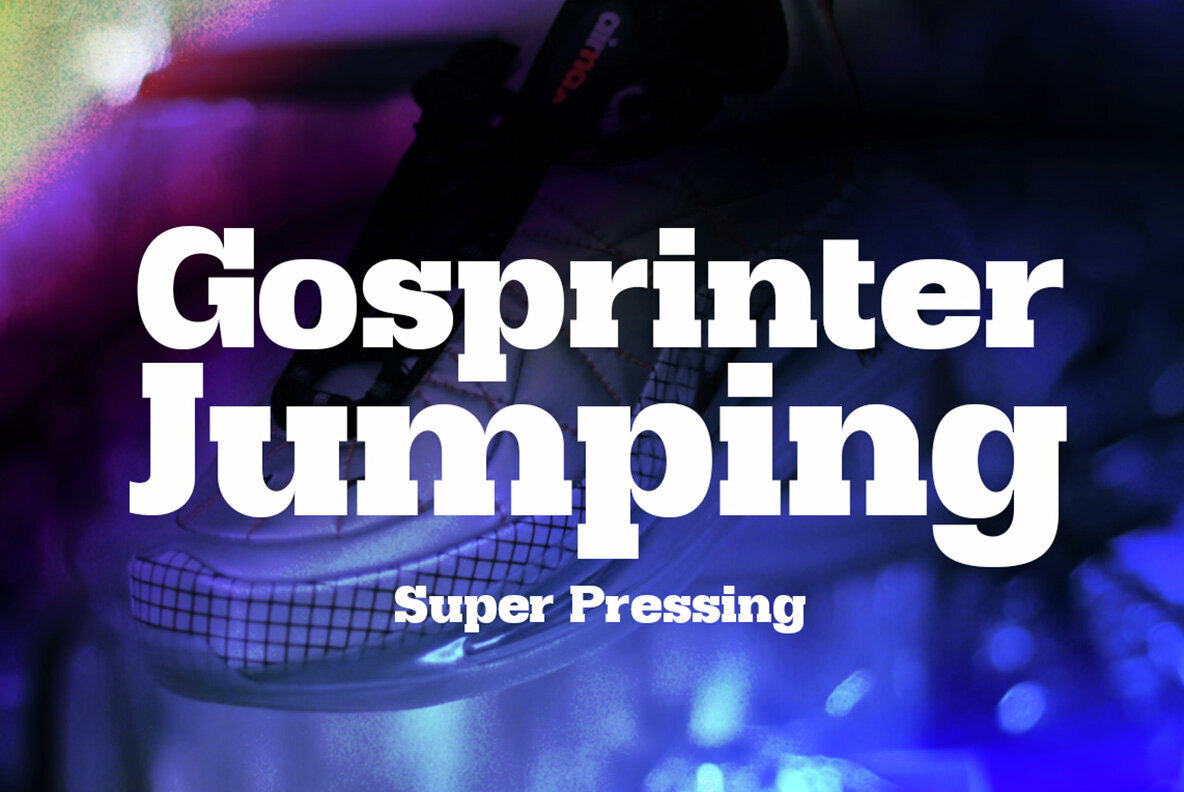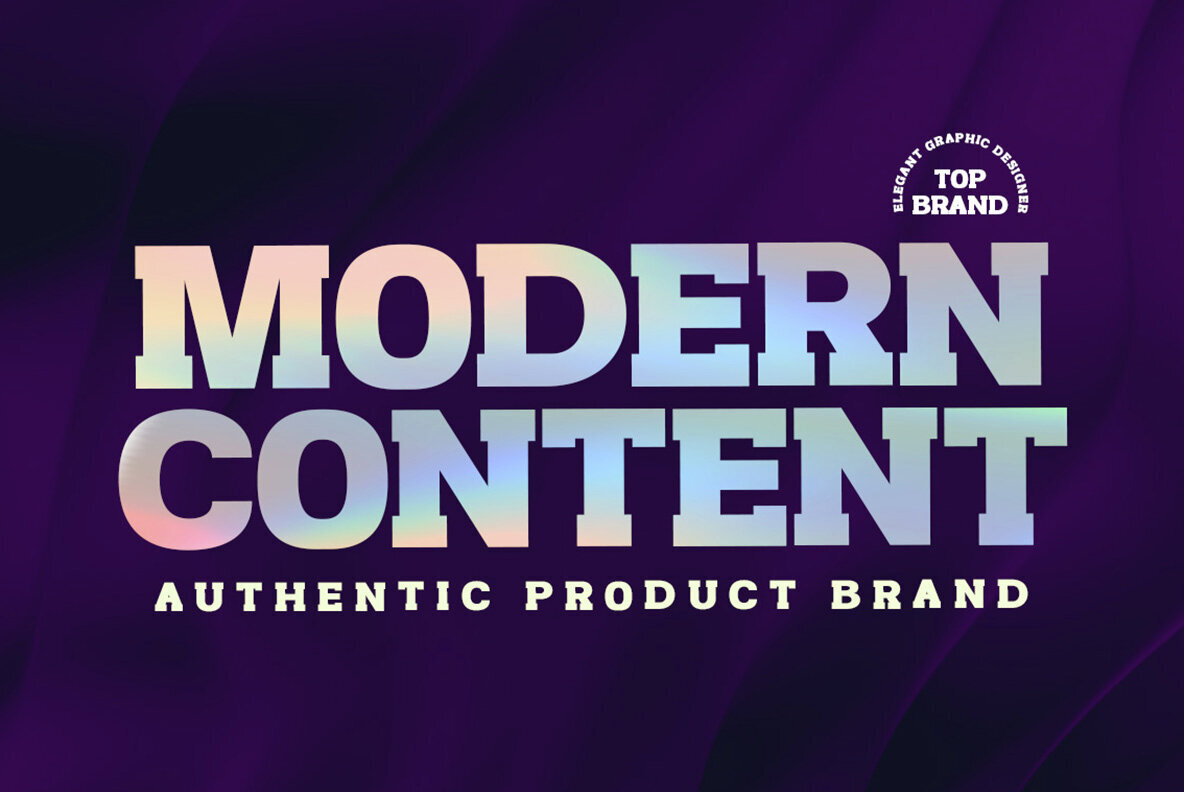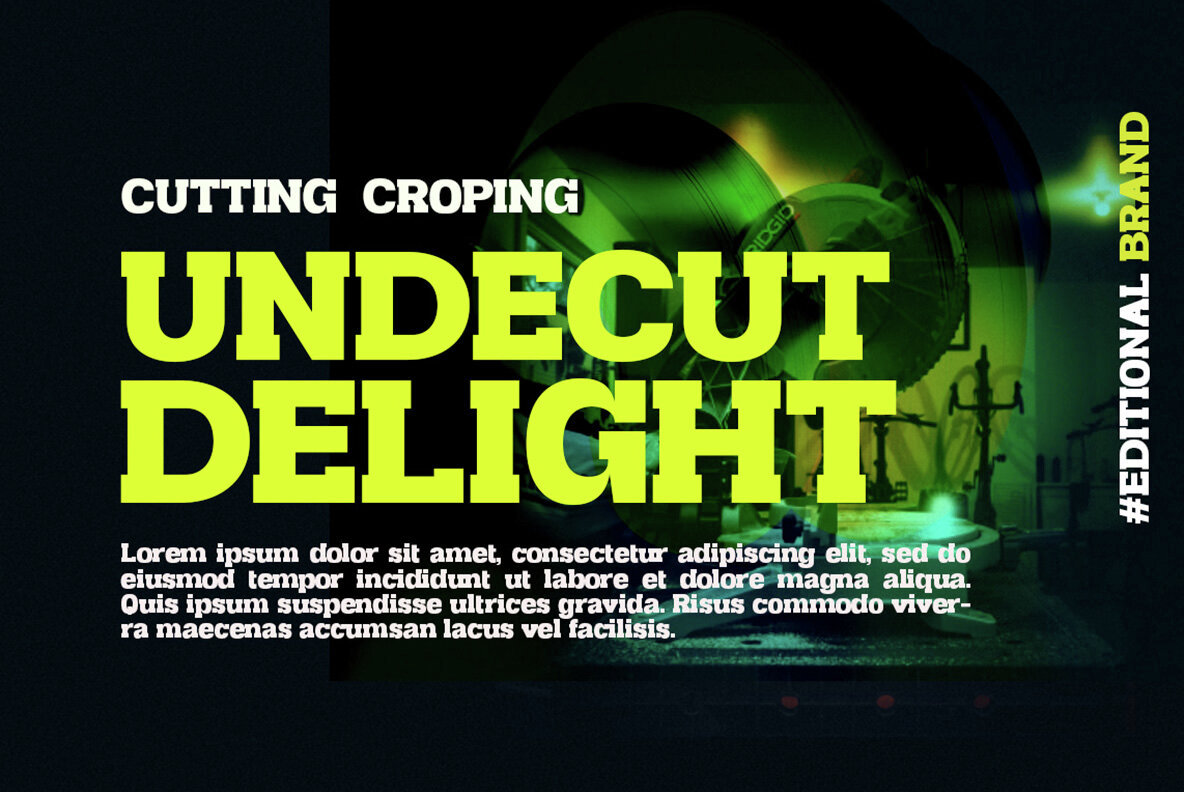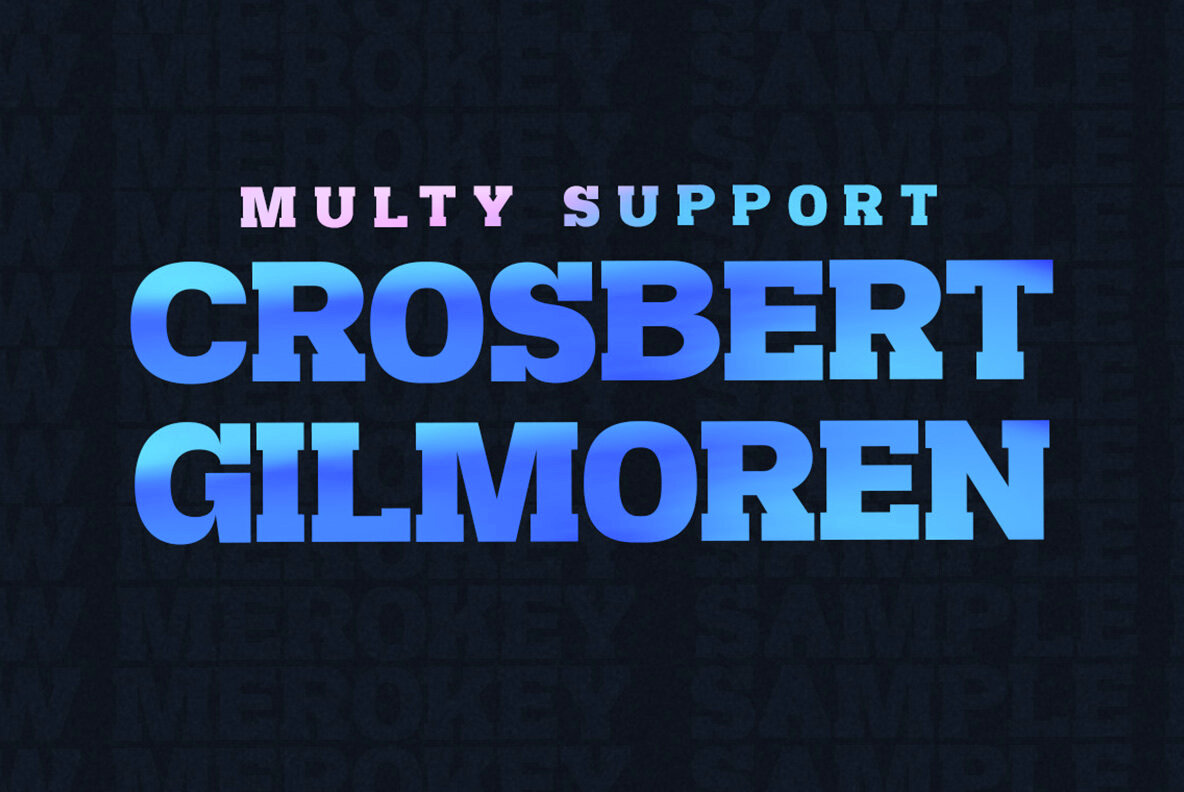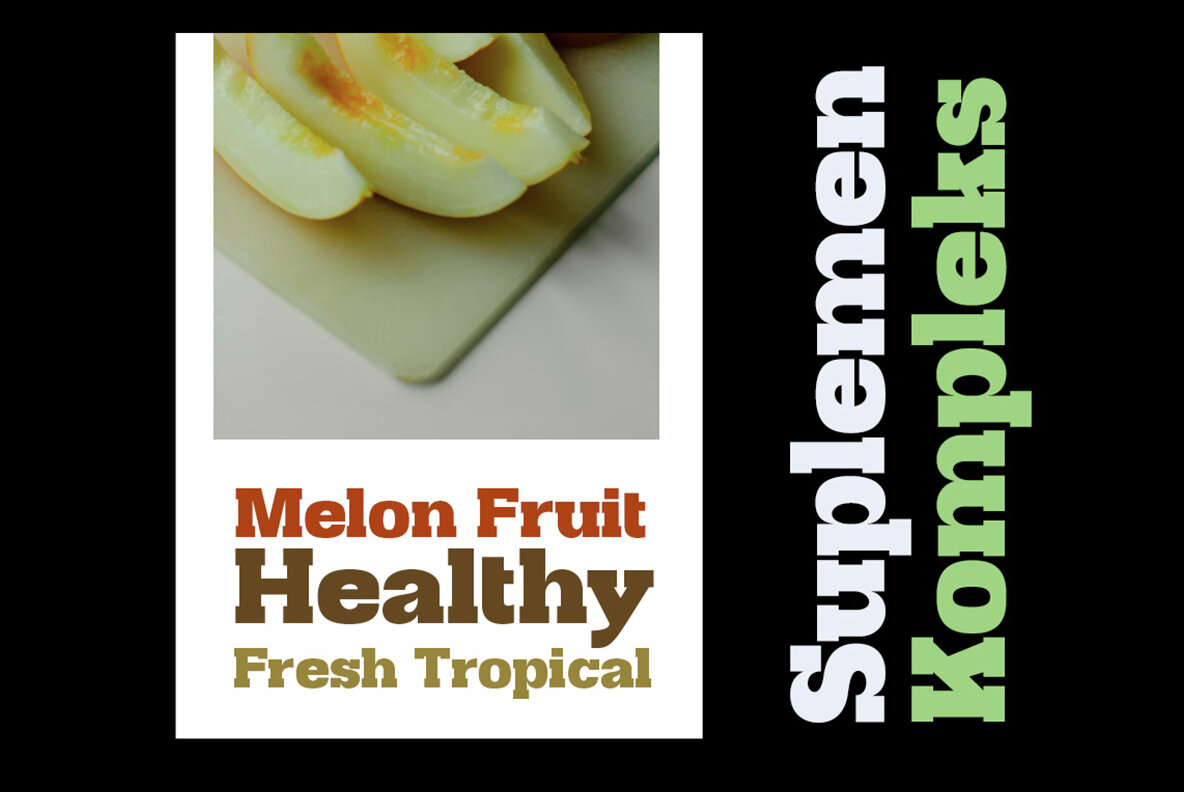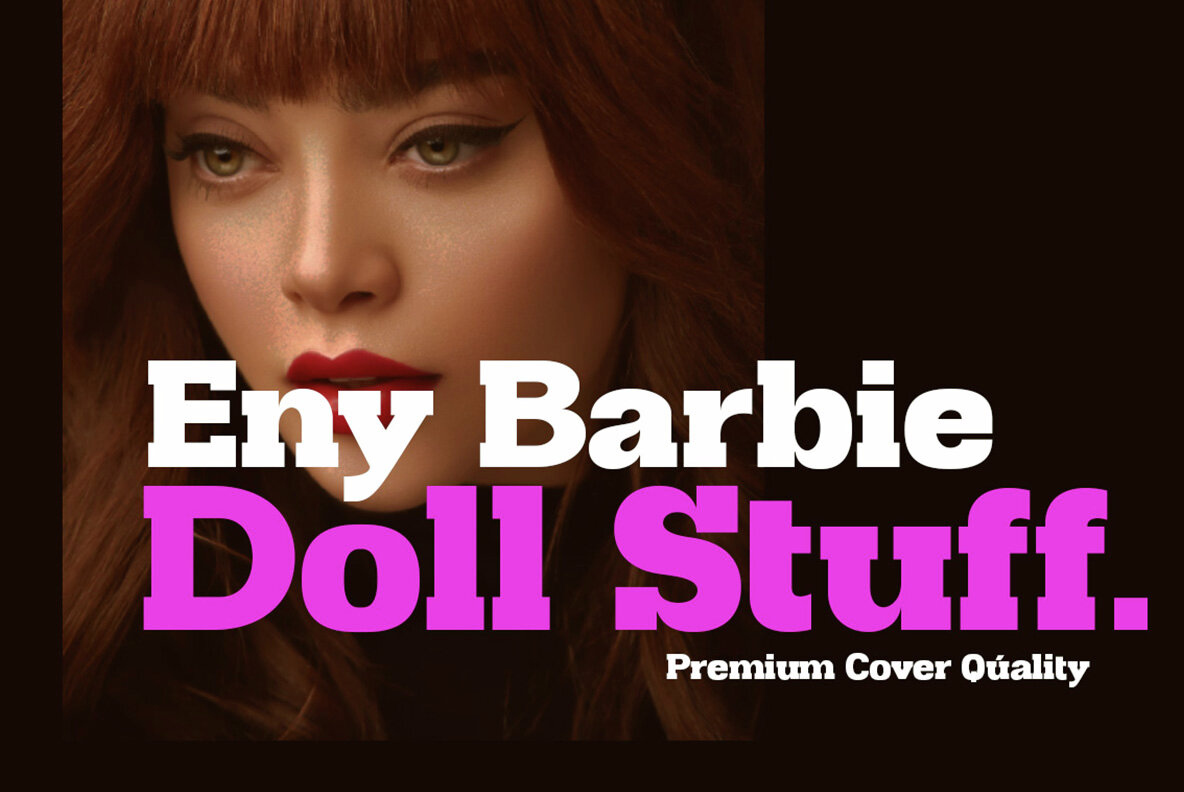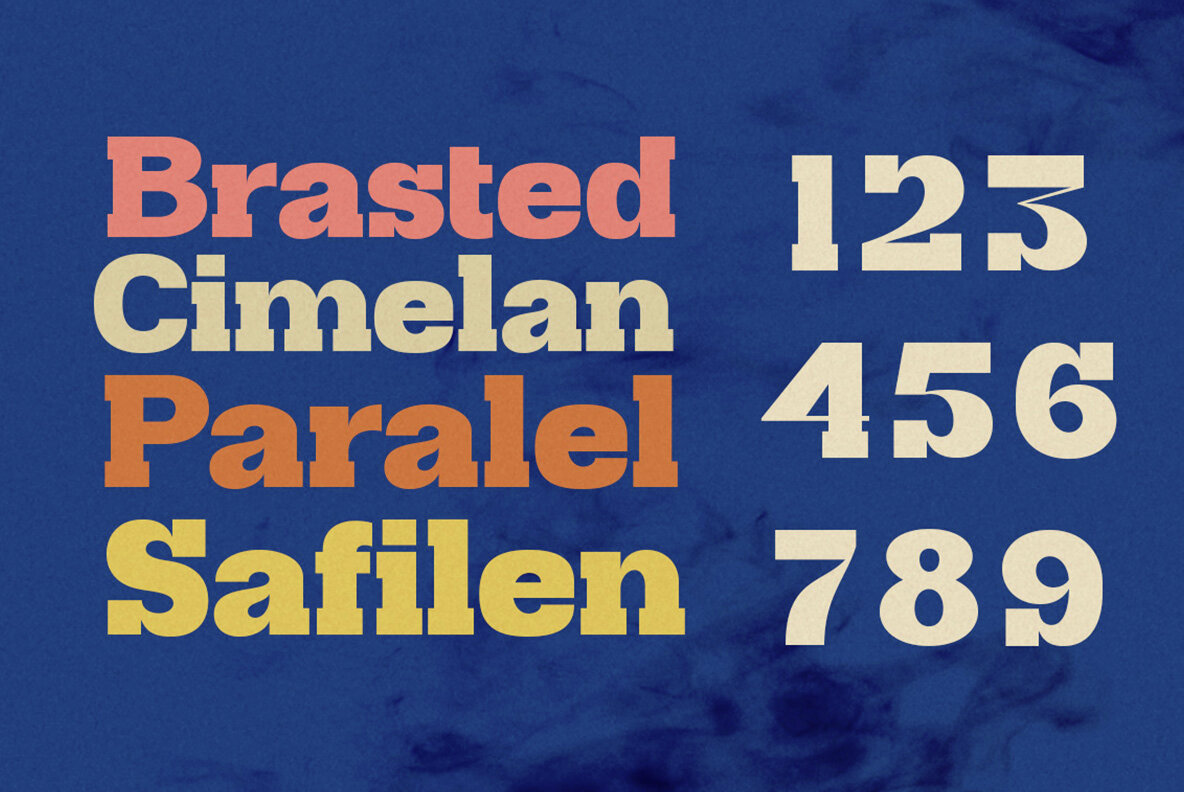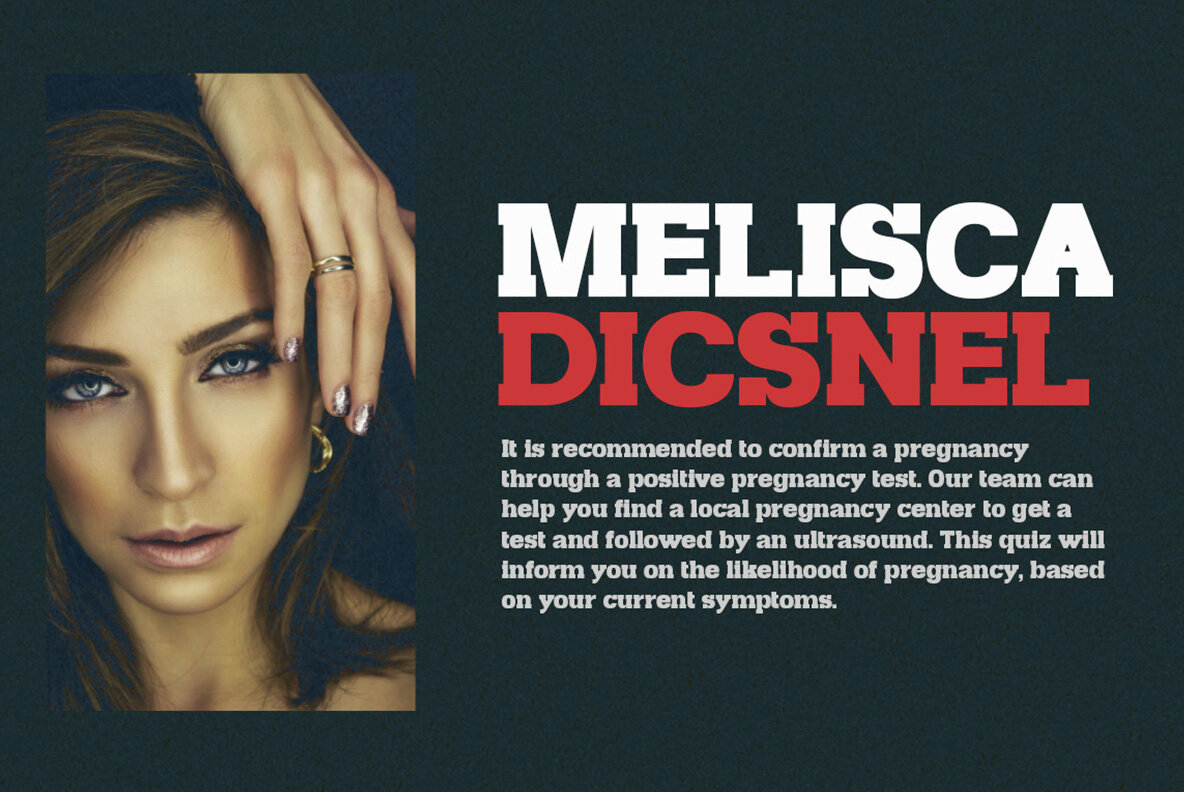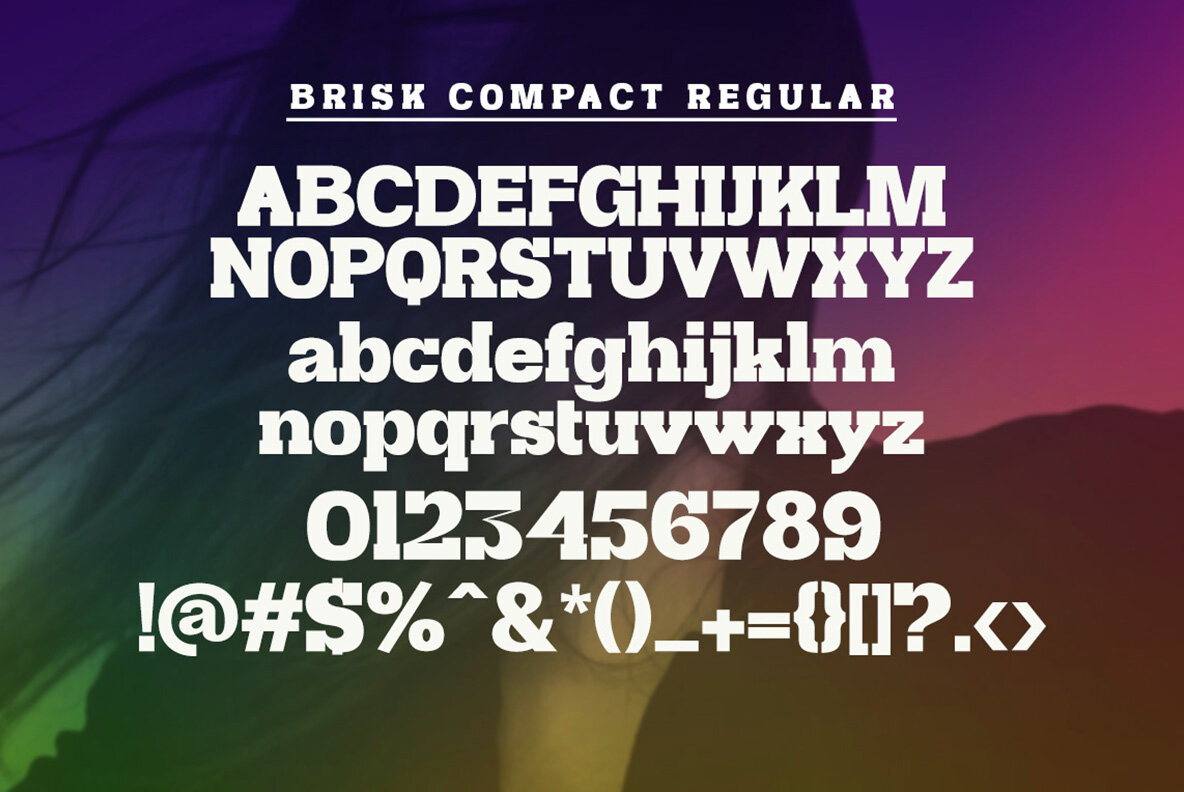
Brisk Compact Font
Brisk Compact Regular
Brisk Compact is a slab serif font that features bold, clean, and sizable shapes. It excels in conveying order and harmony through its letter design, making it a robust choice for various applications.Brisk Compact: Bold and Harmonious Slab Serif
Character Features